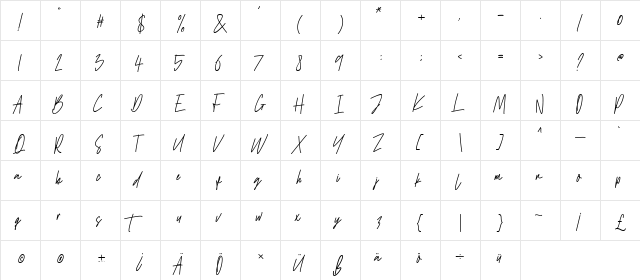
Antilkat Regular
Design Context for Antilkat Typeface
Antilkat is a composed and adaptable typeface that performs quietly and consistently across a wide range of design contexts.